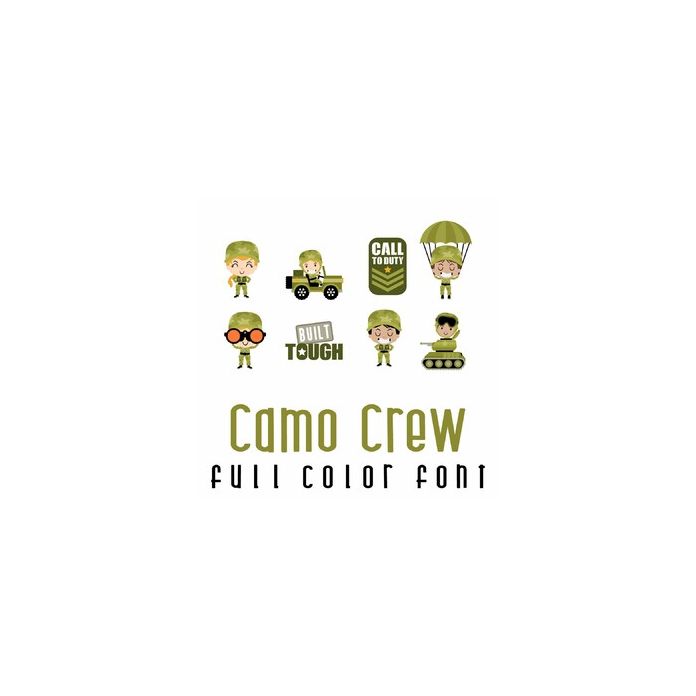
This adorable full-color doodlebat font features 26 adorable military-themed imagery. Perfect for cards, crafts, gifts, decor, scrapbook pages, planner stickers, and more!